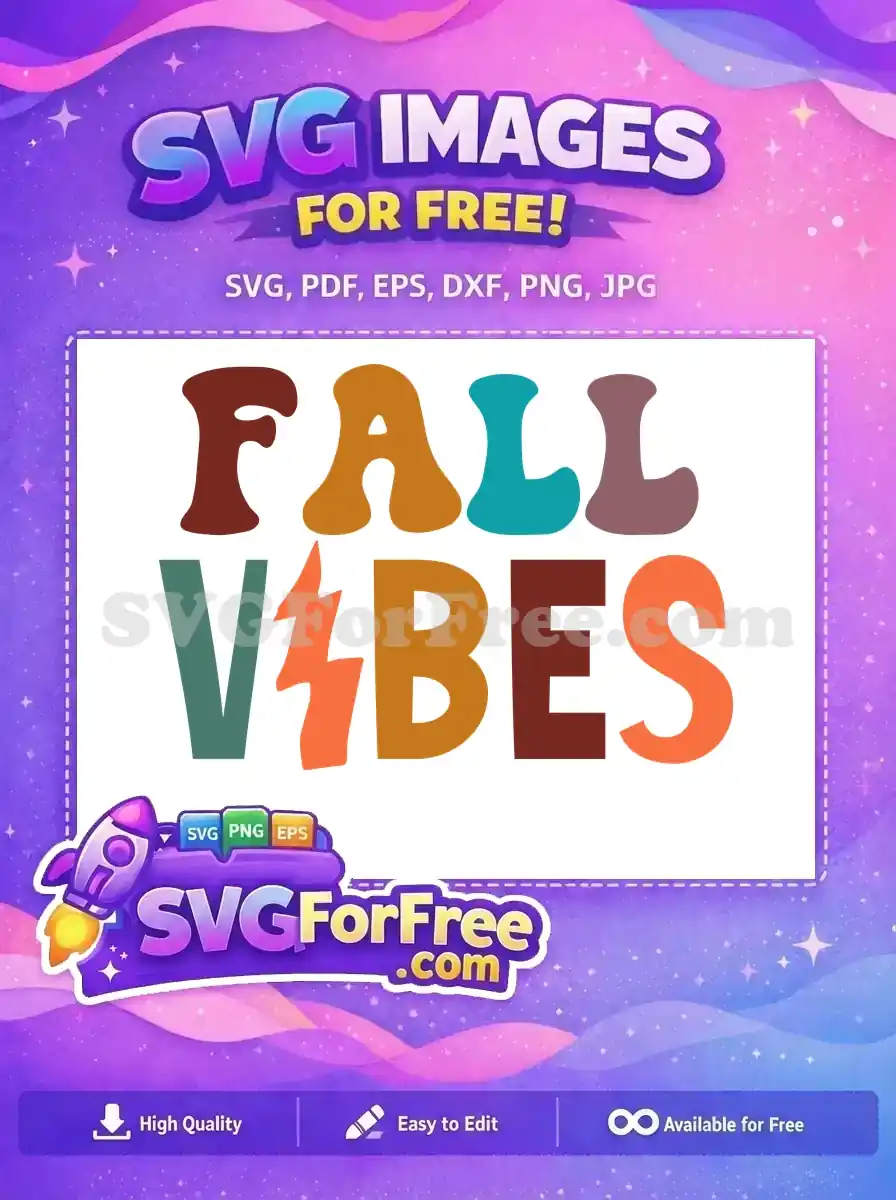
Free Wavy Retro Font Lightning Free Autumn Colors Fall Vibes Free SVG – Instant Download
Embrace the season with this groovy ‘Fall Vibes’ free design! Perfect for cozy projects, it’s a must-have free SVG.
Free Wavy Retro Font Lightning Free Autumn Colors Fall Vibes Free SVG